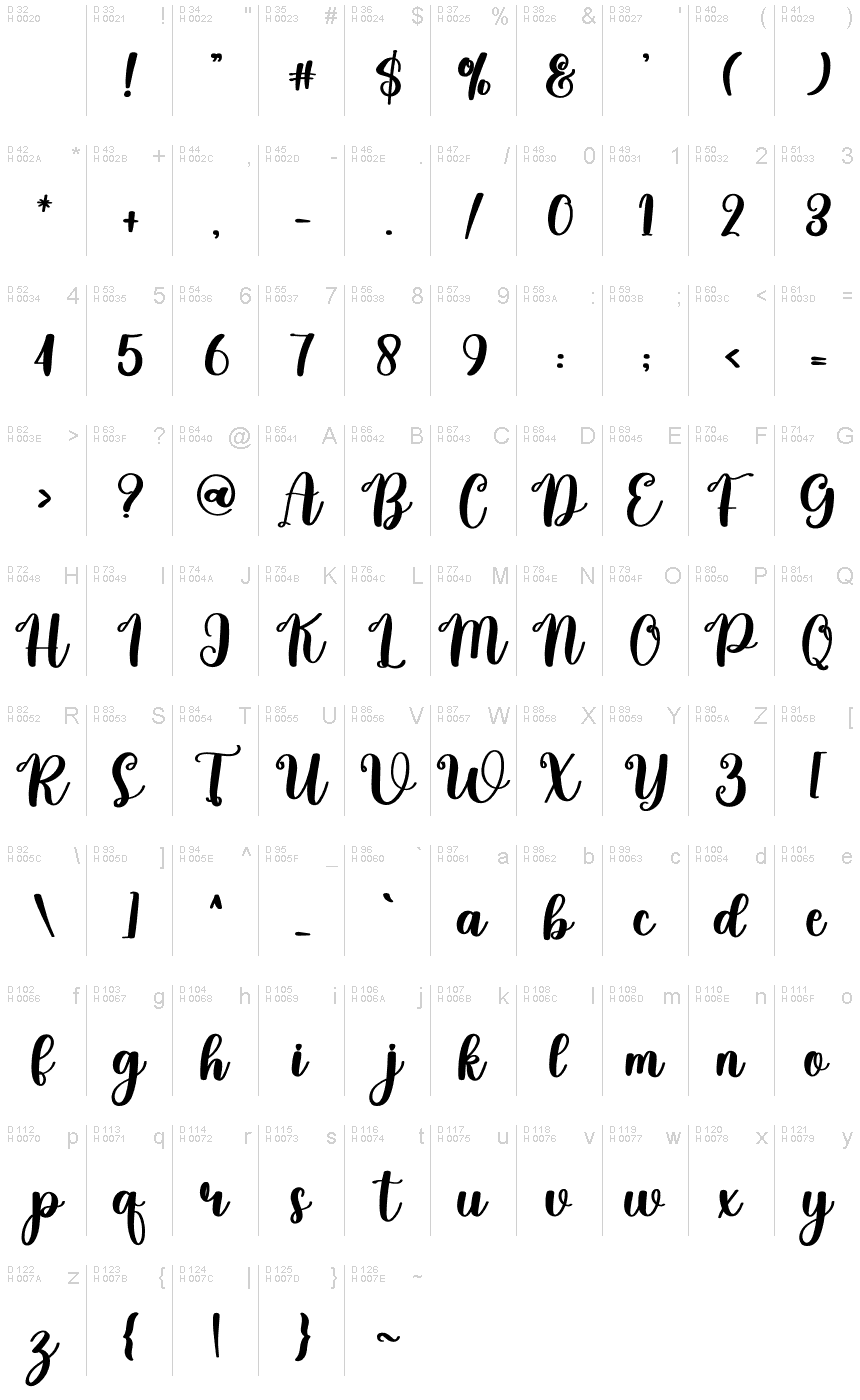
Bride
Bride, the exquisite creation by Inermedia Studio, is an elegant and bold calligraphy font that exudes sophistication and charm. With its graceful curves and precise strokes, this font is perfect for wedding invitations, romantic novels, luxury branding, or any project that demands a touch of refined beauty. Whether you're designing an opulent event poster or a high-end fashion magazine cover, Bride's captivating presence will effortlessly elevate your work to new heights. Unleash your creativity with this stunning typeface and let it become the epitome of grace and grandeur in your design endeavors.